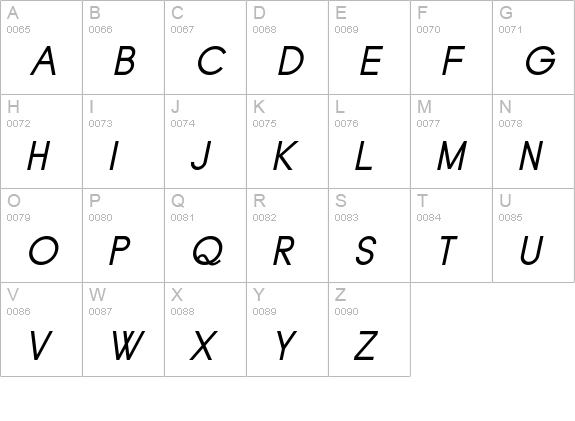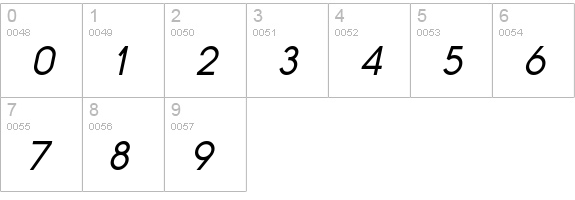
Typo Grotesk Italic Font Details
Typo Grotesk Italic is a distinctive, italic variant in the Typo typeface family \xE2\x80\x94 well suited to design and typography projects.
Typo Grotesk Italic is a sleek and modern font that adds a touch of sophistication to any design project. Its italicized form brings a sense of elegance and dynamism to the text, making it perfect for headings, titles, and emphasis. This font is the perfect choice for those who want to make a bold statement with their typography. Its clean lines and subtle curves create a harmonious balance that is both eye-catching and easy to read. Typo Grotesk Italic is not only visually stunning, but it is also incredibly versatile. Its timeless design makes it suitable for a wide range of projects, from branding and advertising to web design and editorial layouts. Whether you are creating a logo, a poster, or a website, this font will effortlessly elevate your design to new heights. The best part? Typo Grotesk Italic is completely free to download at FontsMarket.com. This means that you can add this stunning font to your collection without spending a dime. It's a fantastic opportunity to enhance your design toolbox and bring your creative vision to life. So why wait? Take advantage of this wonderful offer and download Typo Grotesk Italic today. Whether you're a professional designer or a typography enthusiast, this font is sure to inspire and impress. Don't miss out on the opportunity to create stunning visuals with this exceptional typeface.